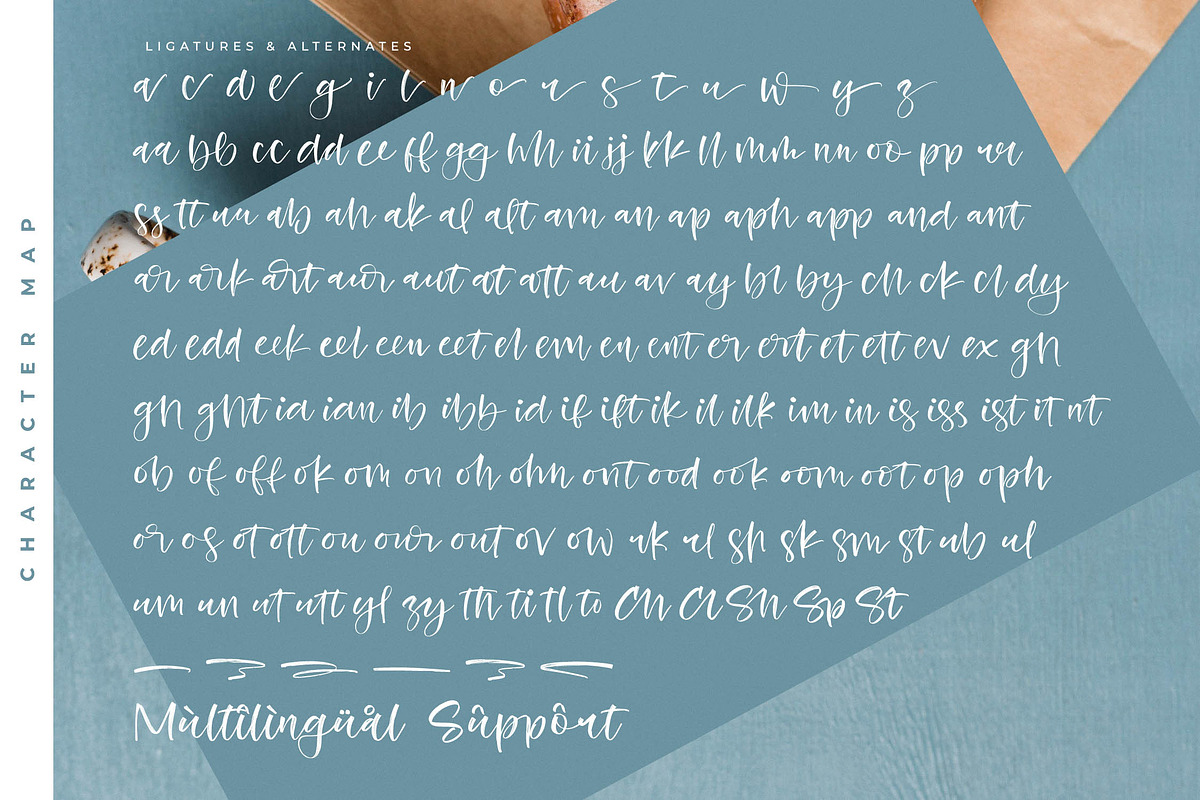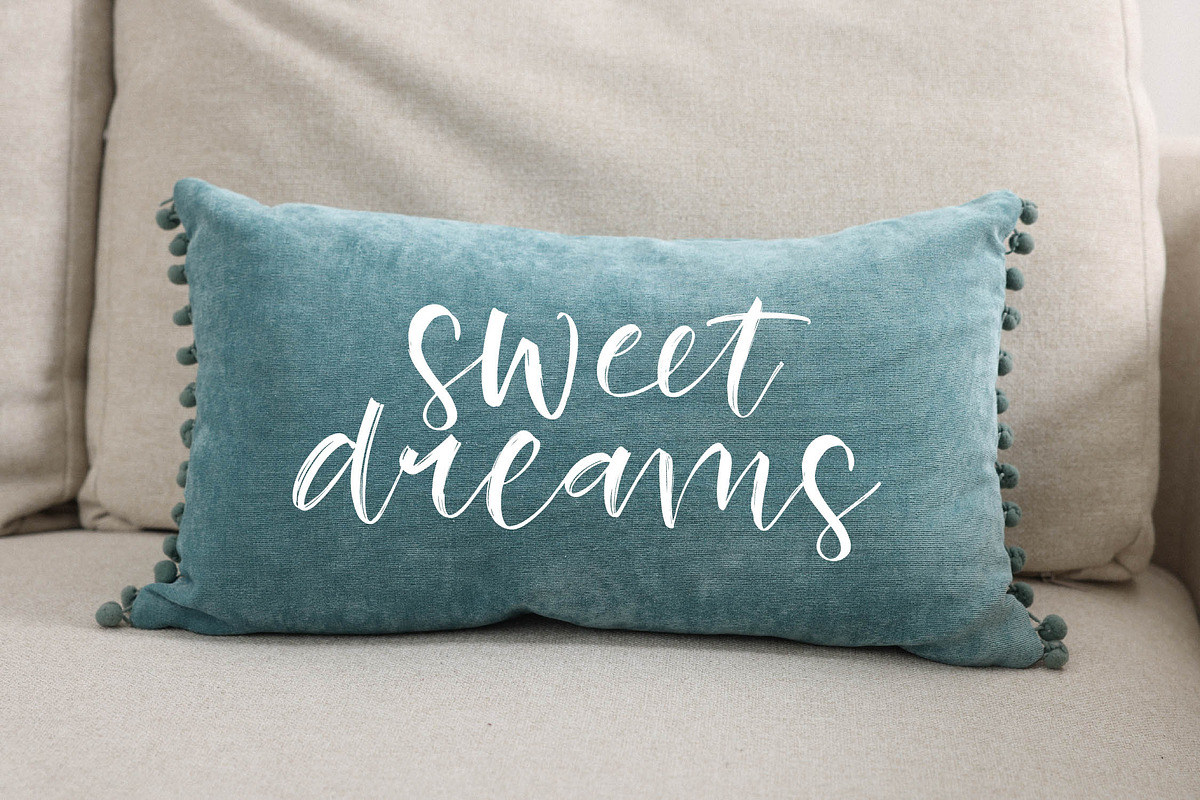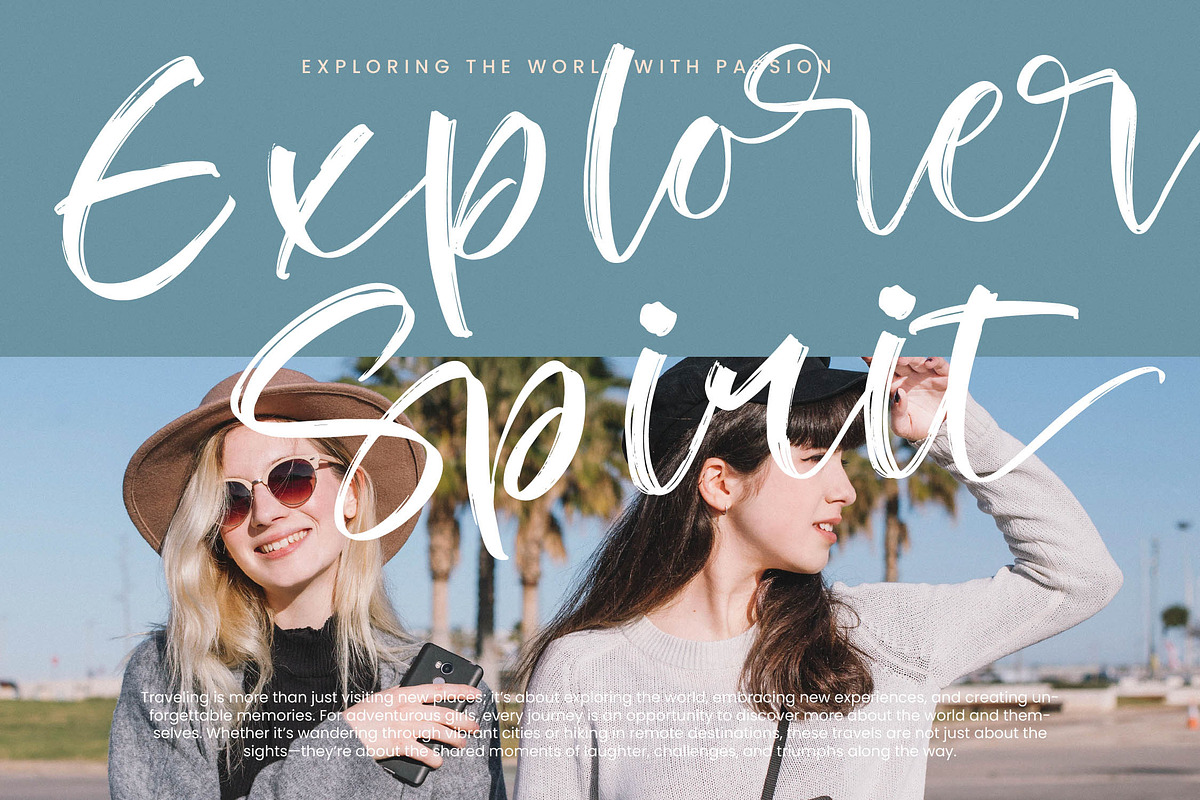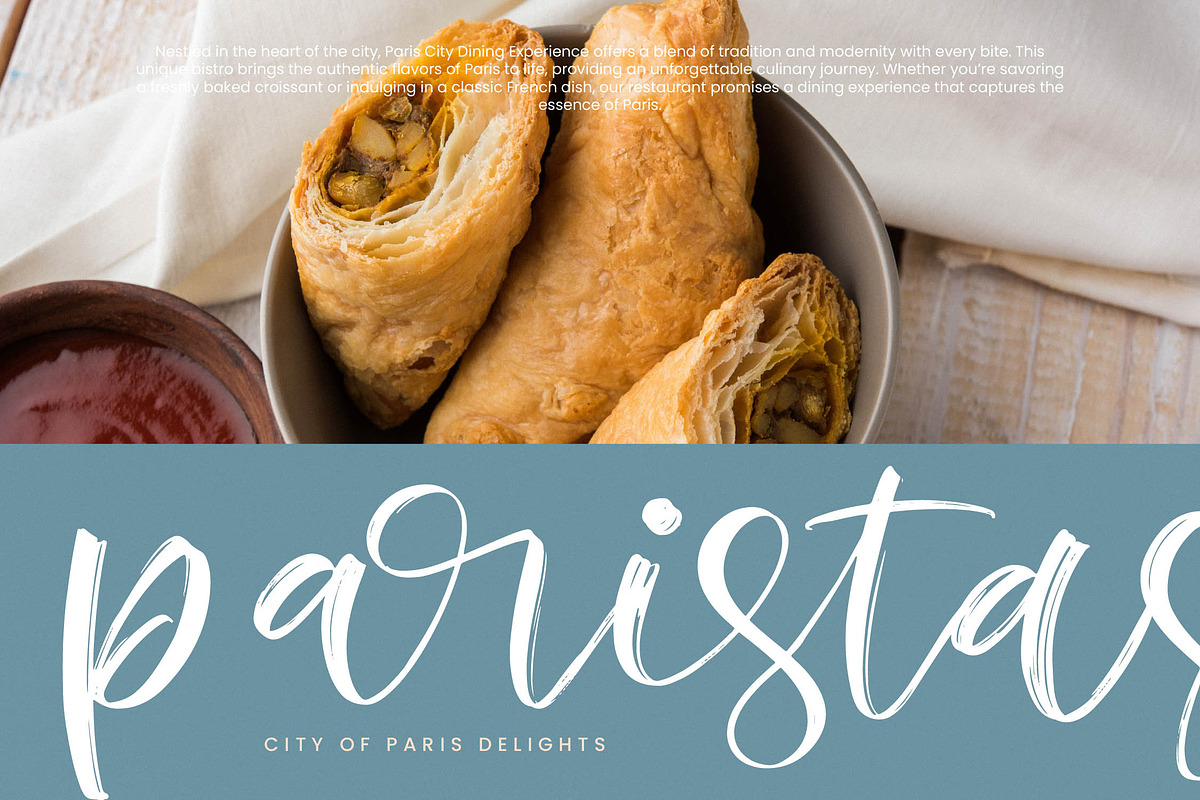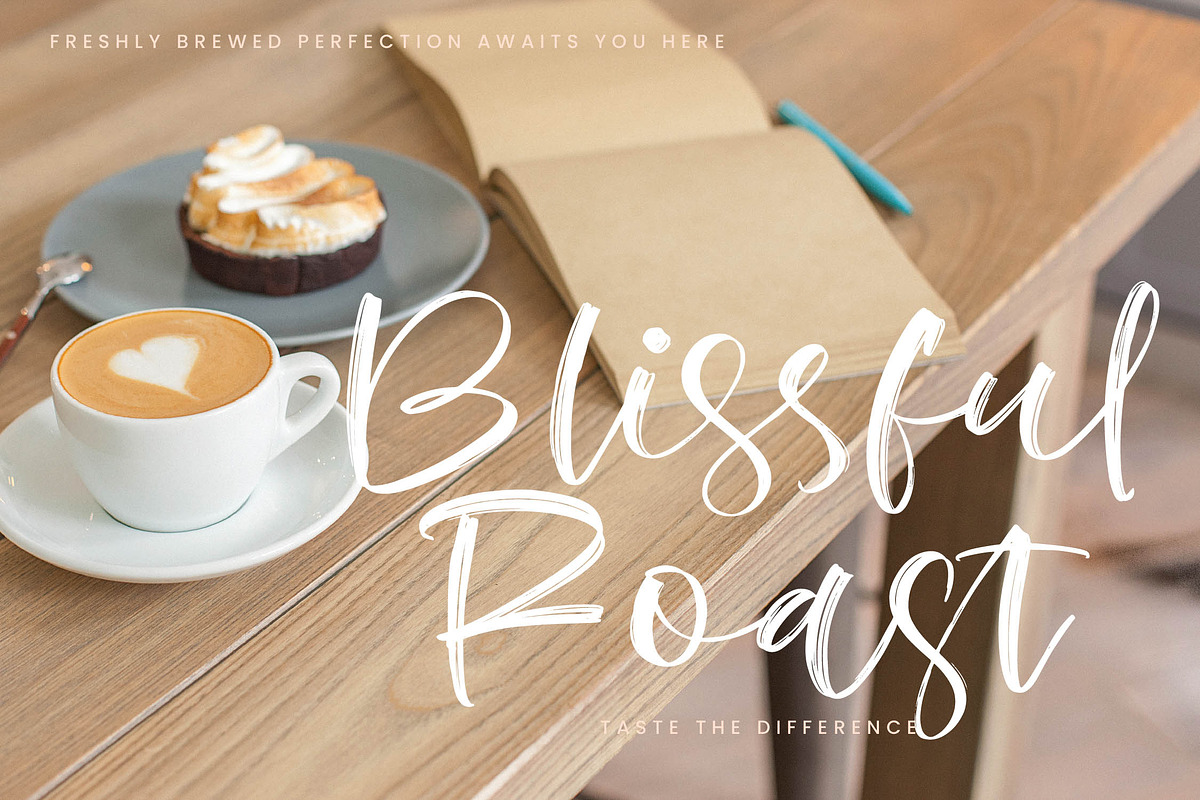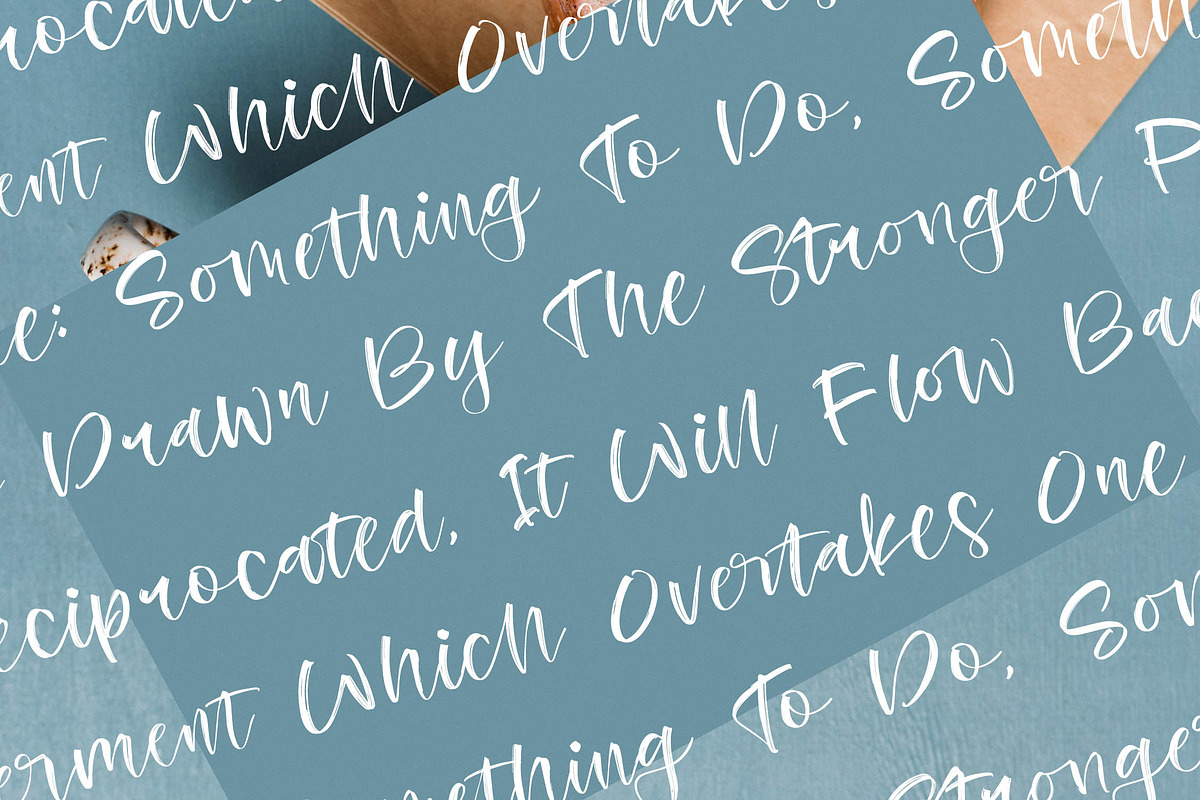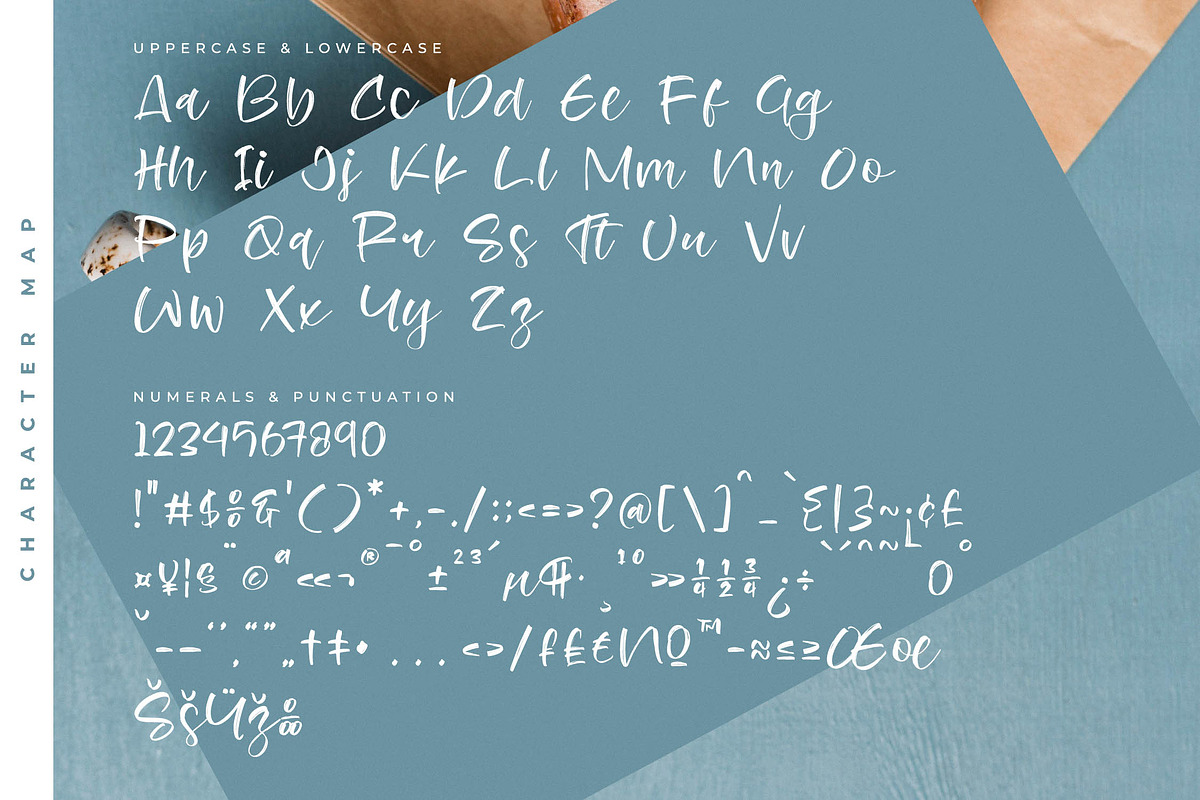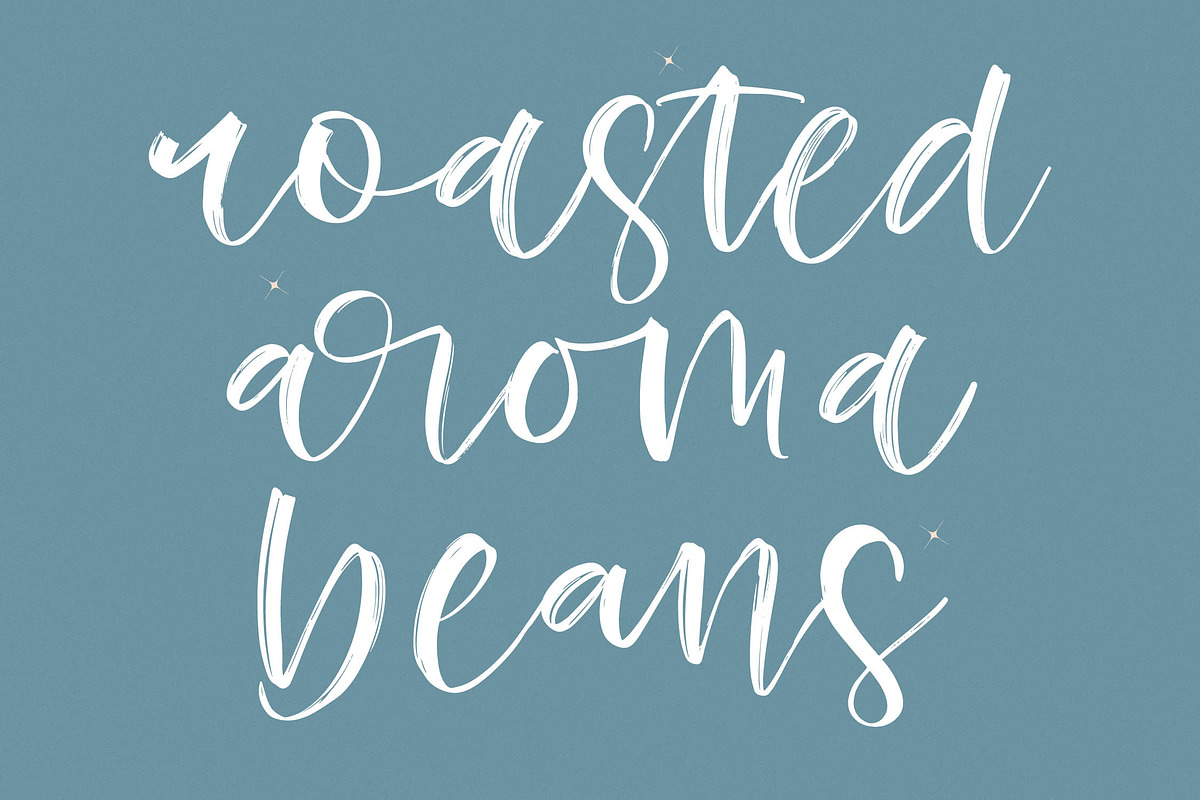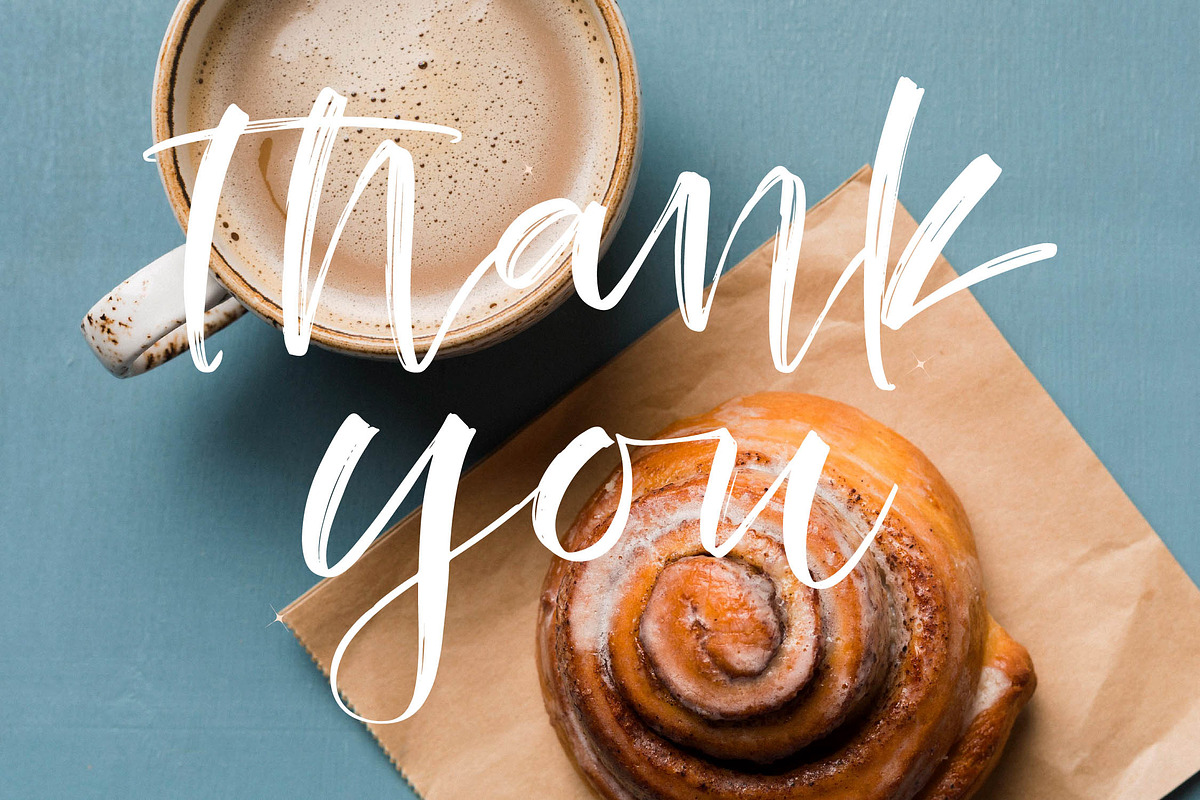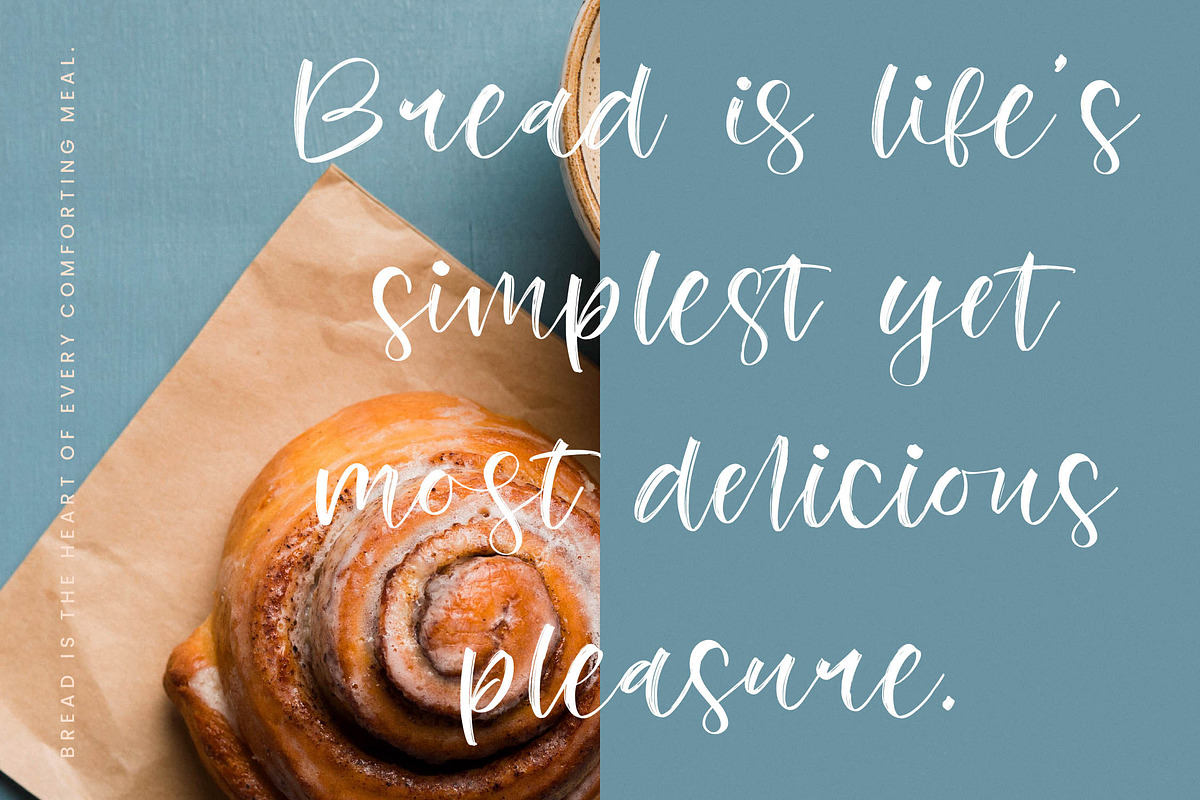
Beans Cozy Modern Handbrush Script
Beans Cozy - Modern Handbrush Script , from Stylishtype.Co , Suitable for any projects such as: logos, branding projects, homeware designs, product packaging, mugs, quotes, posters, shopping bags, t-shirts, book covers, name card, invitation cards, greeting cards, label, photography, watermark, special events, and all your other luxury and beautiful projects that need a Luxury Script taste.
- 122 Ligature 55 Alternates & Swashes